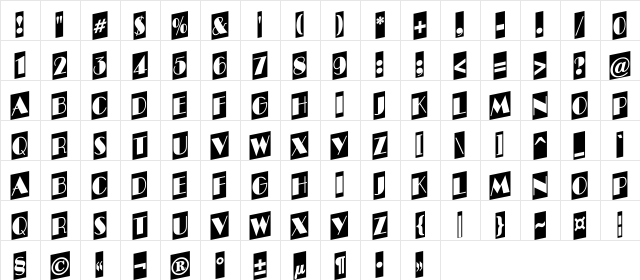
a_BentTitulCmUpNr Regular Font Preview
a_BentTitulCmUpNr Regular
a_BentTitulCmUpNr Regular Font Details
Design Context for a_BentTitulCmUpNr Typeface
a_BentTitulCmUpNr is a composed and adaptable typeface that performs quietly and consistently across a wide range of design contexts.